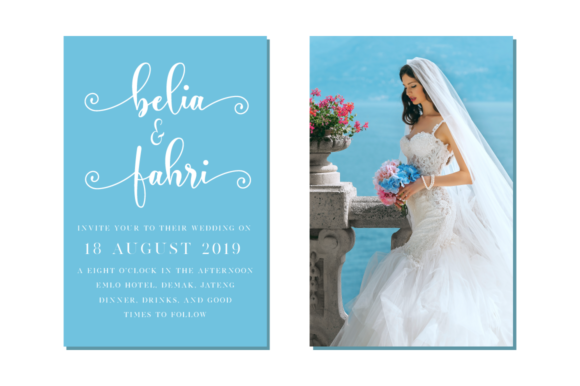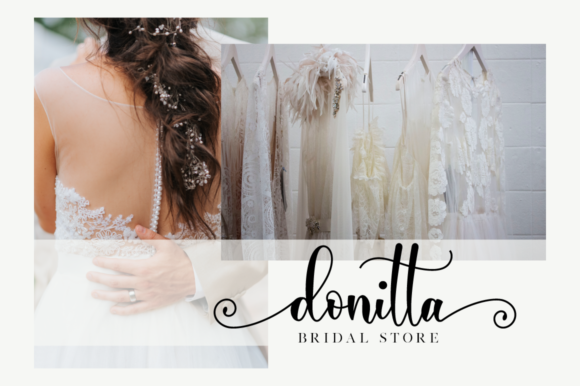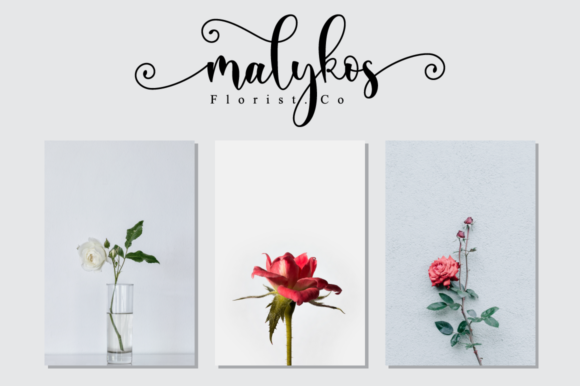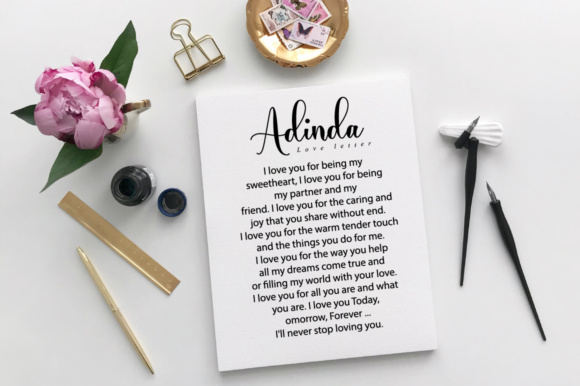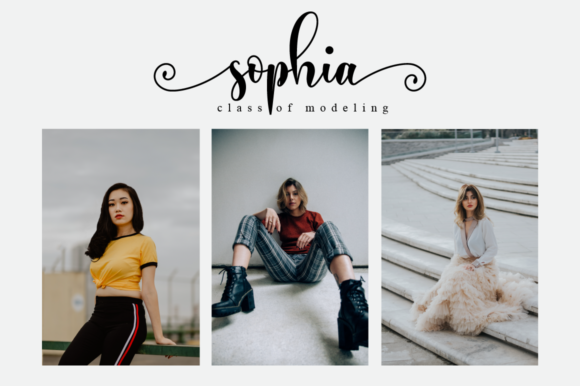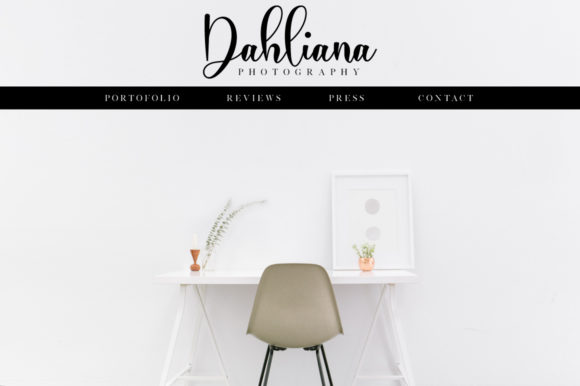
Ayalda Font: Elevate Your Designs with Elegance and Sophistication
In the world of typography, few fonts manage to capture the essence of elegance and sophistication as effortlessly as Ayalda. This classy and elegant handwritten font, adorned with beautiful swashes, has been making waves in the design community for its unique look and versatility. Whether you’re a seasoned designer or a crafty enthusiast, Ayalda is poised to transform your design ideas into true standouts.
The Beauty of Ayalda: A Closer Look
Ayalda’s charm lies in its intricate details and flowing lines, which give it a distinctly luxurious feel. The font’s elegant swashes add a touch of sophistication, making it perfect for projects that demand a high level of refinement. From wedding invitations and branding materials to packaging and digital content, Ayalda’s versatility knows no bounds.
Why Designers Love Ayalda
Designers appreciate fonts that offer both aesthetic appeal and practicality, and Ayalda delivers on both fronts. Here are a few reasons why Ayalda has become a favorite among designers:
- Elegance and Sophistication: Ayalda’s elegant swashes and refined lines make it perfect for high-end branding, luxury packaging, and sophisticated editorial content.
- Versatility: The font’s adaptability means it can be used across a wide range of projects, from digital interfaces to print materials.
- Unique Look: Ayalda’s distinctive style ensures that your designs stand out from the crowd, capturing the attention of your audience.
How Crafters Can Benefit from Ayalda
Crafters and DIY enthusiasts can also leverage Ayalda’s beauty to elevate their projects. Whether you’re creating handmade cards, crafting bespoke jewelry, or designing custom home decor, Ayalda can add a touch of elegance to your creations.
- Handmade Cards and Stationery: Add a luxurious feel to your greeting cards, invitations, and stationery with Ayalda’s elegant script.
- Custom Jewelry and Accessories: Use Ayalda-inspired typography on custom jewelry, candles, and other home decor items to give them a sophisticated edge.
- Digital Crafts: Incorporate Ayalda into your digital crafts, such as printable art, planners, and journals, to give them a refined and polished look.
Tips for Using Ayalda Effectively
To get the most out of Ayalda, consider the following tips:
- Pair with Simplicity: Balance Ayalda’s ornateness with simpler design elements to avoid overwhelming the viewer.
- Experiment with Swashes: Play around with Ayalda’s swashes to create unique and eye-catching effects.
- Consider Contrast: Use contrasting colors or font sizes to make Ayalda stand out and draw attention to key elements.
Ayalda is more than just a font – it’s a design statement. With its elegant swashes, refined lines, and unique look, Ayalda offers designers and crafters a powerful tool for creating standout designs. Whether you’re aiming for luxury and sophistication or simply want to add a touch of elegance to your projects, Ayalda is an excellent choice. So why settle for ordinary when you can create something truly extraordinary with Ayalda?